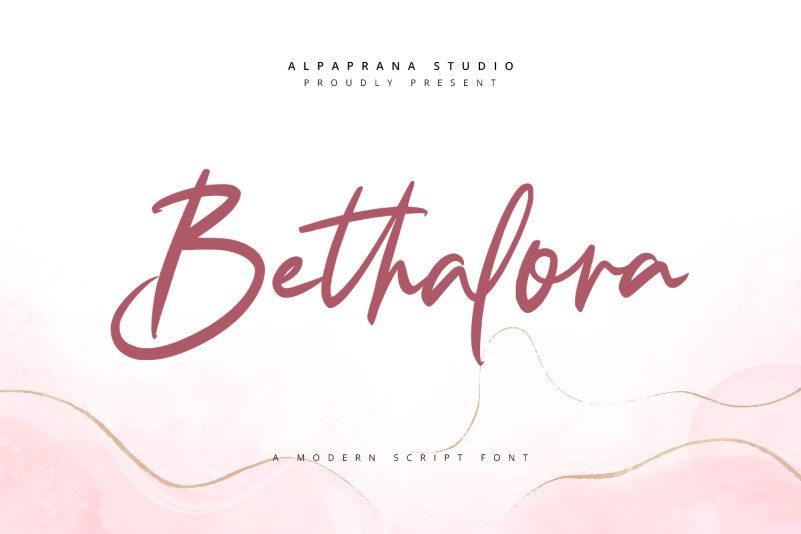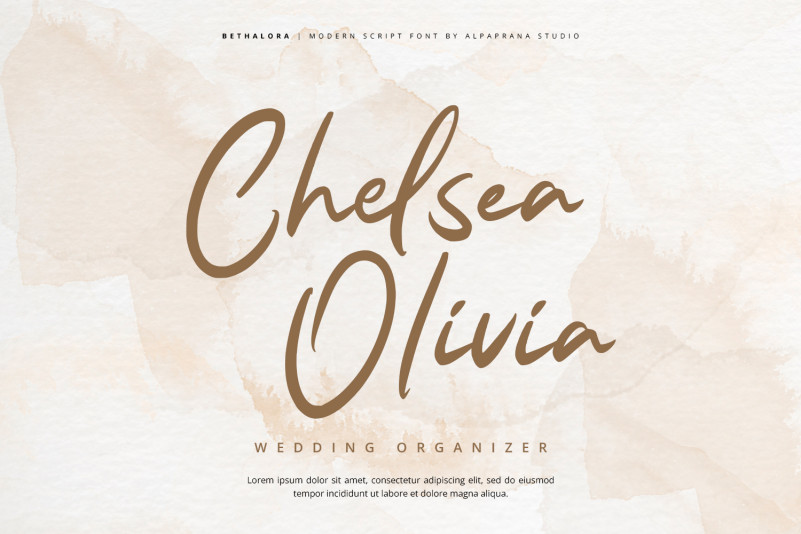
Bethalora Font
Bethalora Script Font is a modern script font with natural and clasic feels. It will be perfectly used for Branding, Logo Design, Lettering, Logotype, Clothing, Poster, magazine, packaging, posters, shopping bags, t-shirts, book covers, photography, special events and other design project.